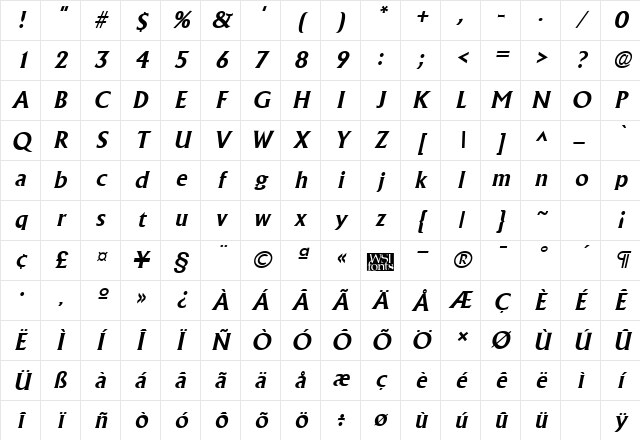
Alberta Bold Italic Free Font
Alberta Bold Italic
Design Context for Alberta
Alberta is a composed and adaptable typeface that performs quietly and consistently across a wide range of design contexts. The slanted form adds forward momentum and visual energy. Its bold stroke weight gives it real presence on the page.
Pro Tip: Use Alberta for emphasis, pull quotes, and subheadings where its slanted energy can add rhythm to the layout.